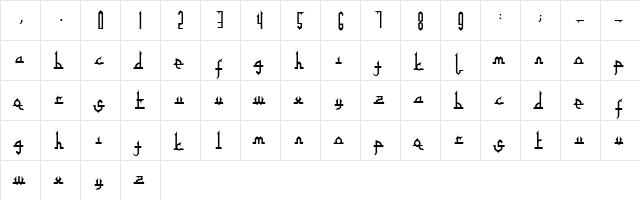
Tafakur Regular
Design Context for Tafakur Typeface
Tafakur is a composed and adaptable typeface that performs quietly and consistently across a wide range of design contexts.